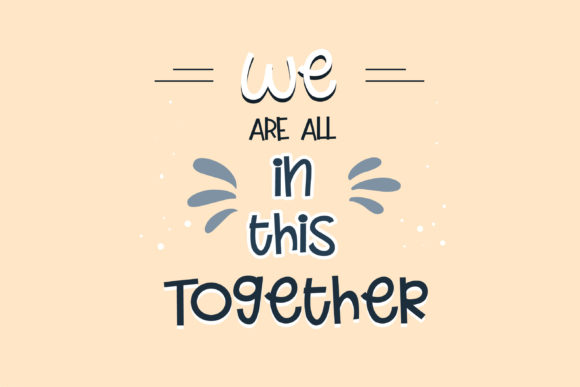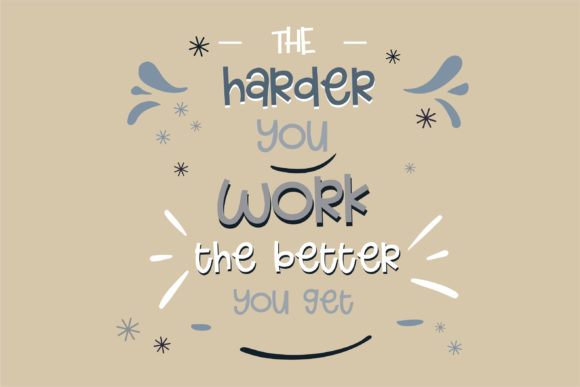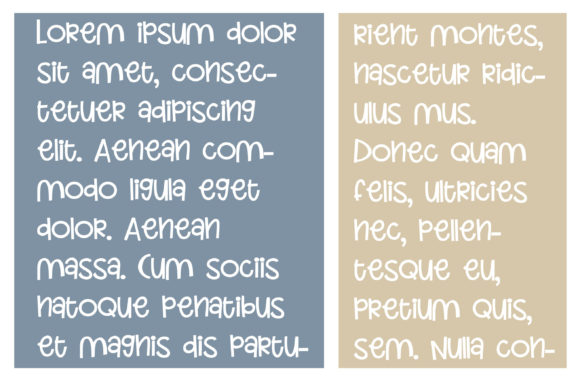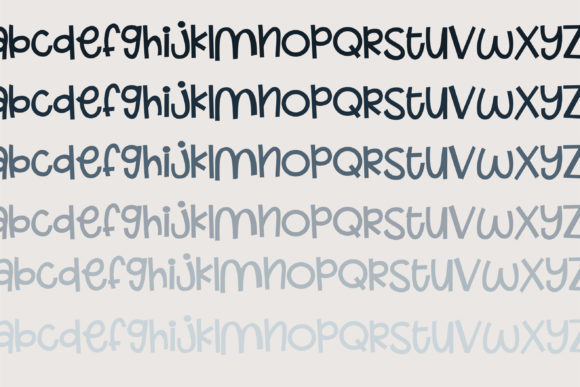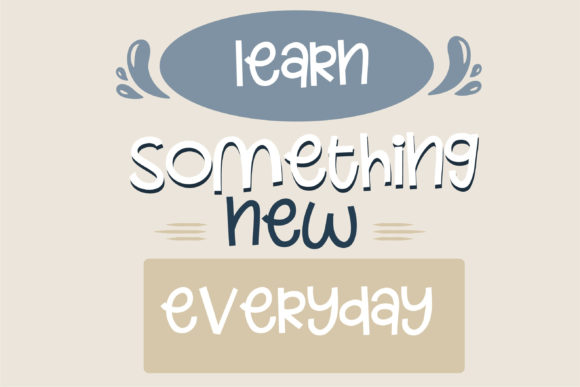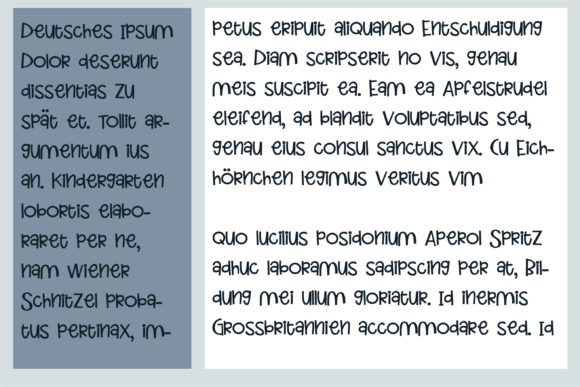
Introduction to Snickometer Font
Snickometer is a chic, slim and sweet sans serif font.
It is perfect for product packaging, branding project, magazine covers, social media, wedding, or just used to express words above the background .
Snickometer Font offers exceptional quality and versatility, making it a valuable addition to your design toolkit. Whether you’re creating for personal projects or commercial use, Snickometer Font delivers professional results.